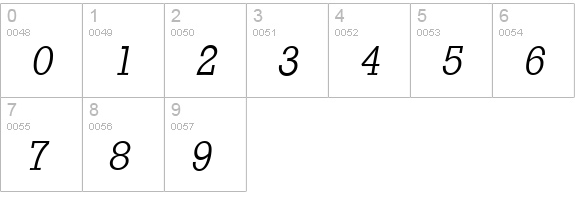
StaffordSerial-Light-Italic is a refined, elegant, italic variant in the StaffordSerial typeface family \xE2\x80\x94 well suited to elegant body text, refined sub-headings, and luxury branding.
StaffordSerial-Light-Italic is a sophisticated and elegant font that exudes a sense of modernity and refinement. Its delicate and slanted design adds a touch of flair to any design project, making it perfect for use in branding, advertising, and editorial materials. The italicized characters lend a sense of movement and grace, creating a visually appealing text that captivates the reader. This font is not only visually stunning but also highly versatile, suitable for a wide range of design applications. Whether you are looking to create a sleek and professional look or add a touch of sophistication to your project, StaffordSerial-Light-Italic is sure to impress. The best part? StaffordSerial-Light-Italic is available for free download at FontsMarket.com, allowing you to access this high-quality font without any cost. Don't miss out on the opportunity to elevate your designs with this beautiful typeface. Download StaffordSerial-Light-Italic today and bring your creative vision to life!